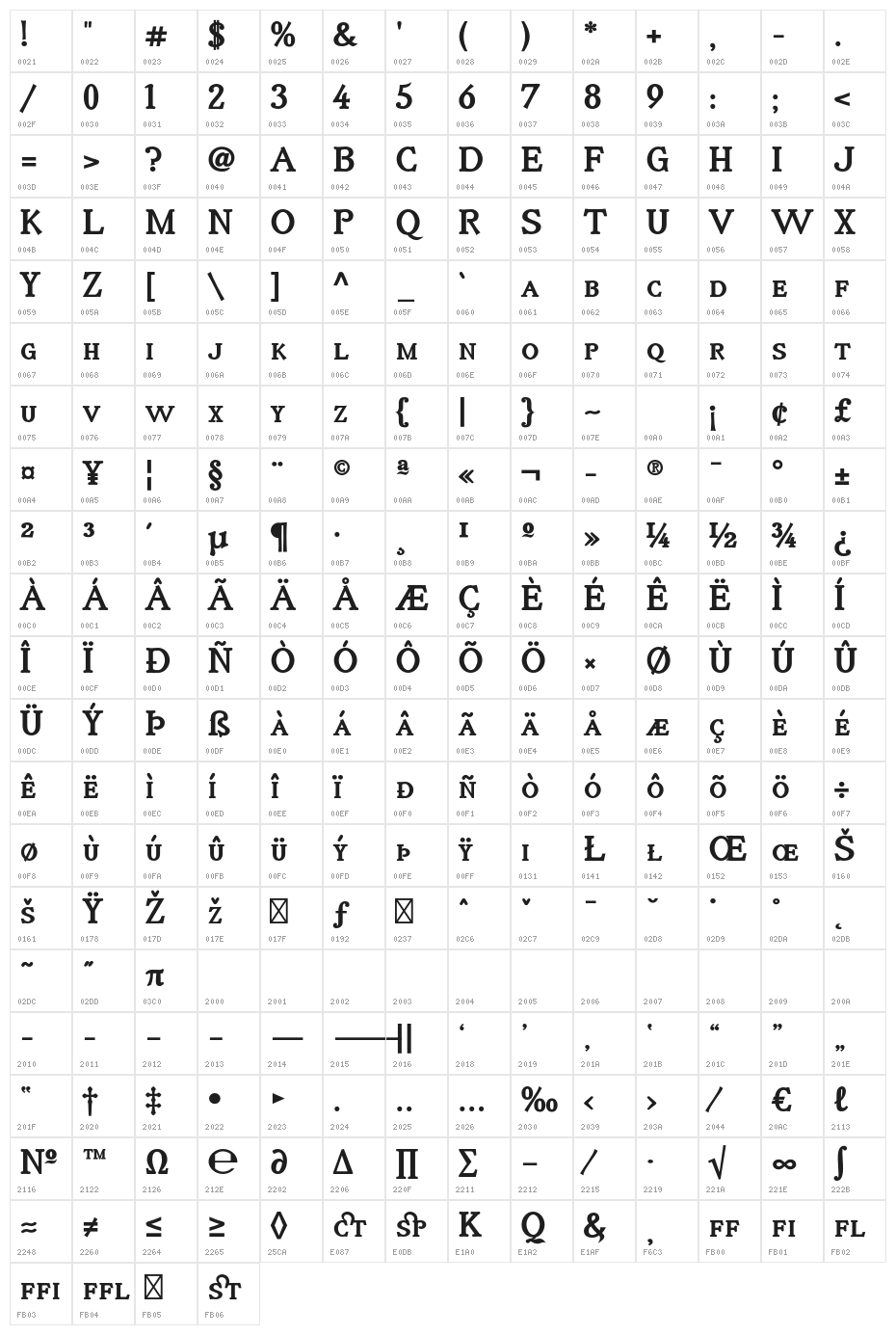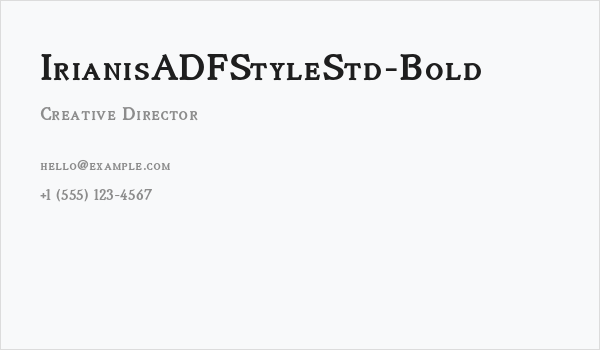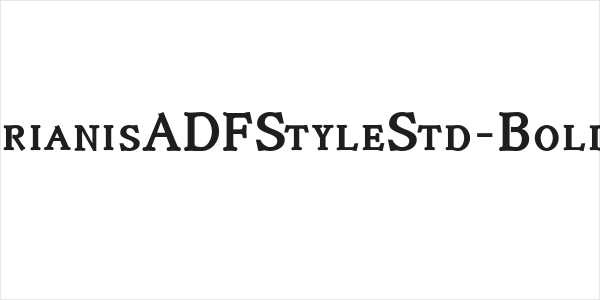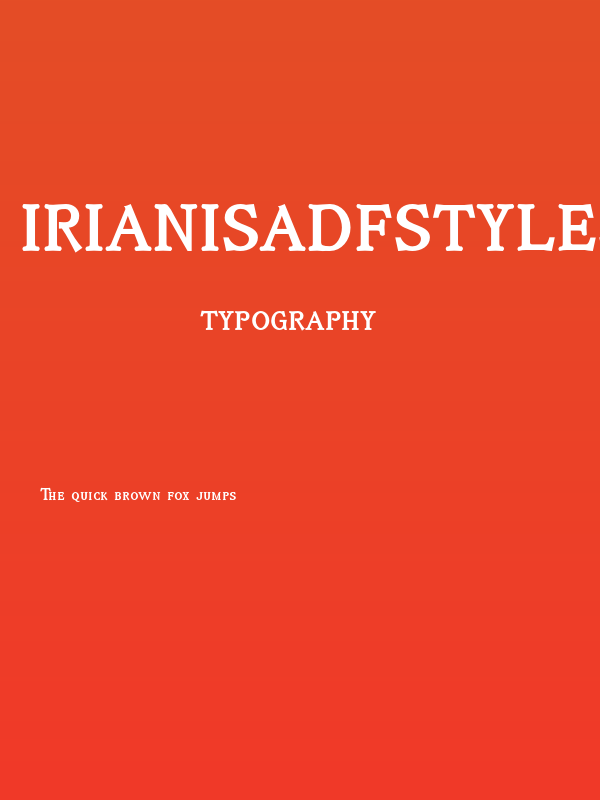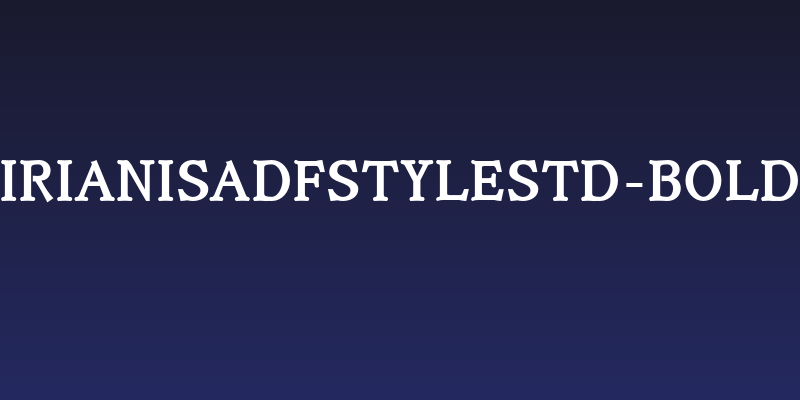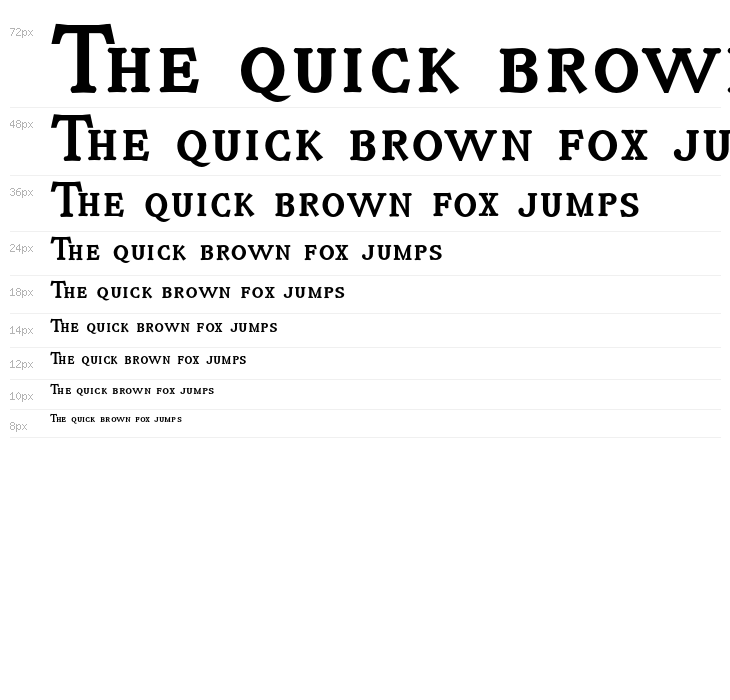
IrianisADFStyleStd-Bold Font
IrianisADFStyleStd-Bold Description
This font exhibits a bold and confident style, characterized by its strong, thick strokes and slightly condensed letterforms. The serifs are pronounced, adding a touch of elegance and tradition to the overall appearance. The uppercase letters are uniform in height, while the lowercase letters maintain a consistent baseline, enhancing readability. The numerals are robust and clear, making them suitable for both display and text settings. Special characters are designed with the same boldness, ensuring they stand out effectively. The font's overall design is versatile, making it suitable for a variety of applications.
| Proposed Projects | Ideal for headlines, posters, branding, and editorial design. |